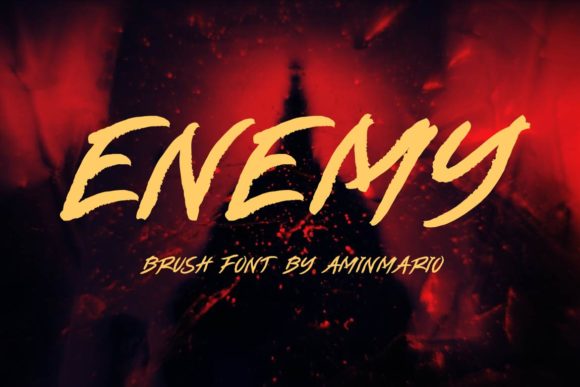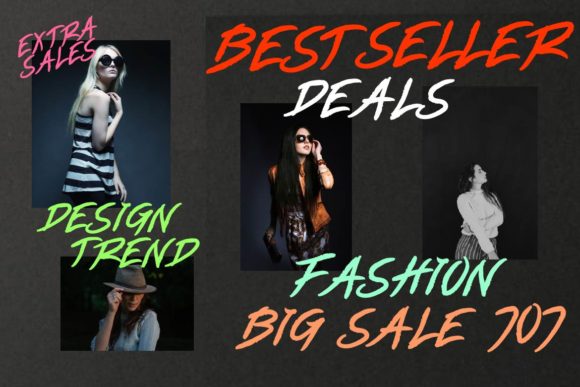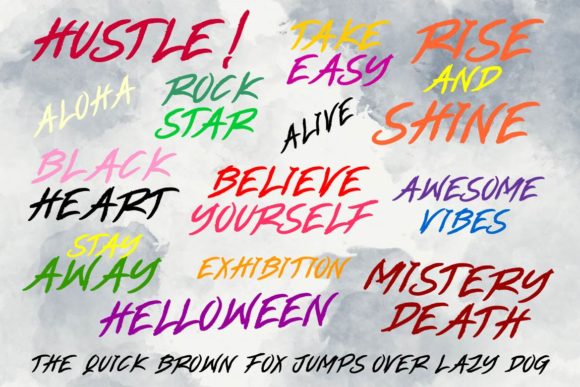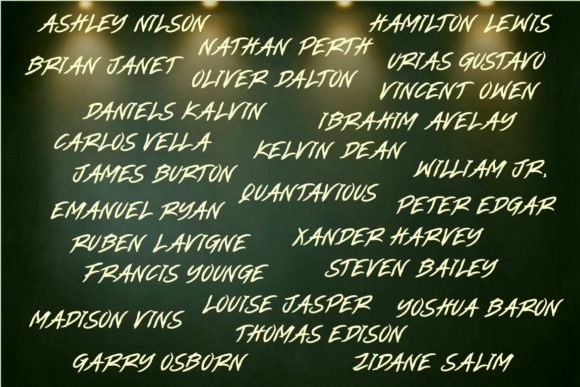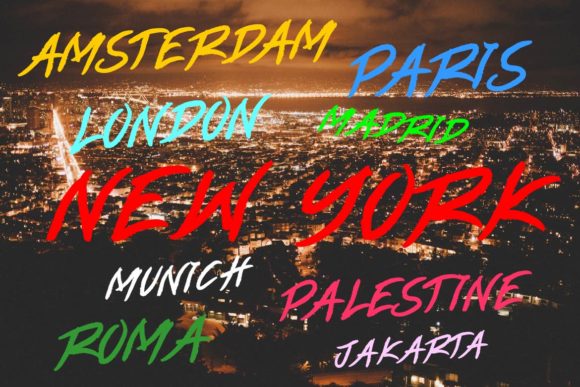
Enemy Font
About Enemy Font
Enemy is a cute handwritten font. It will elevate a wide range of design projects to the highest level, be it branding, headings, wedding designs, invitations, signatures, logos, labels, and much more!